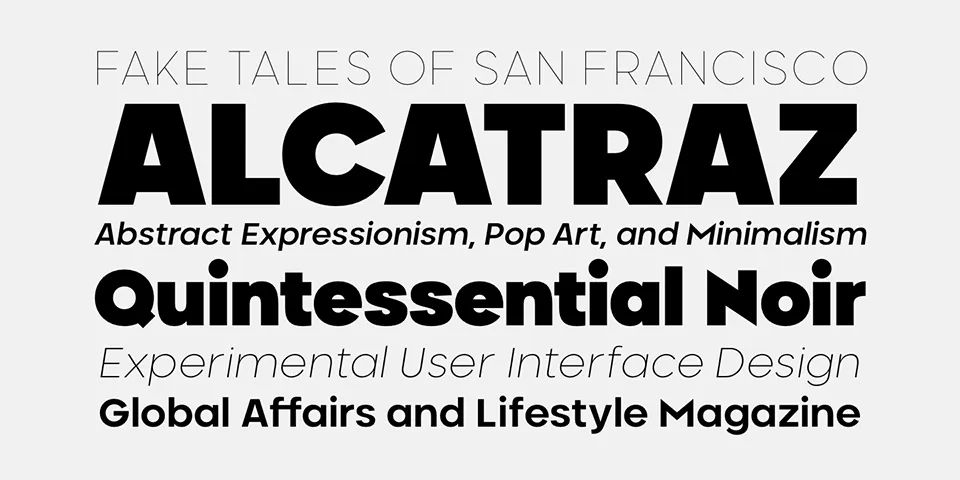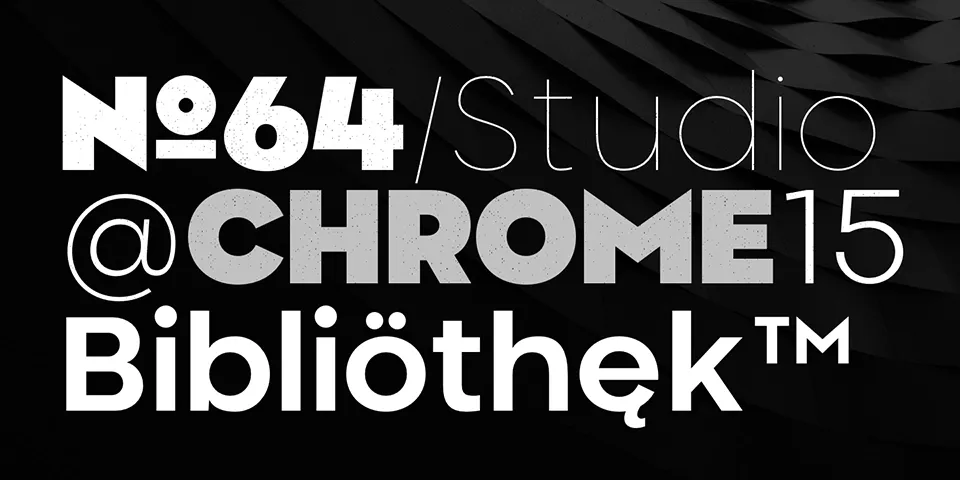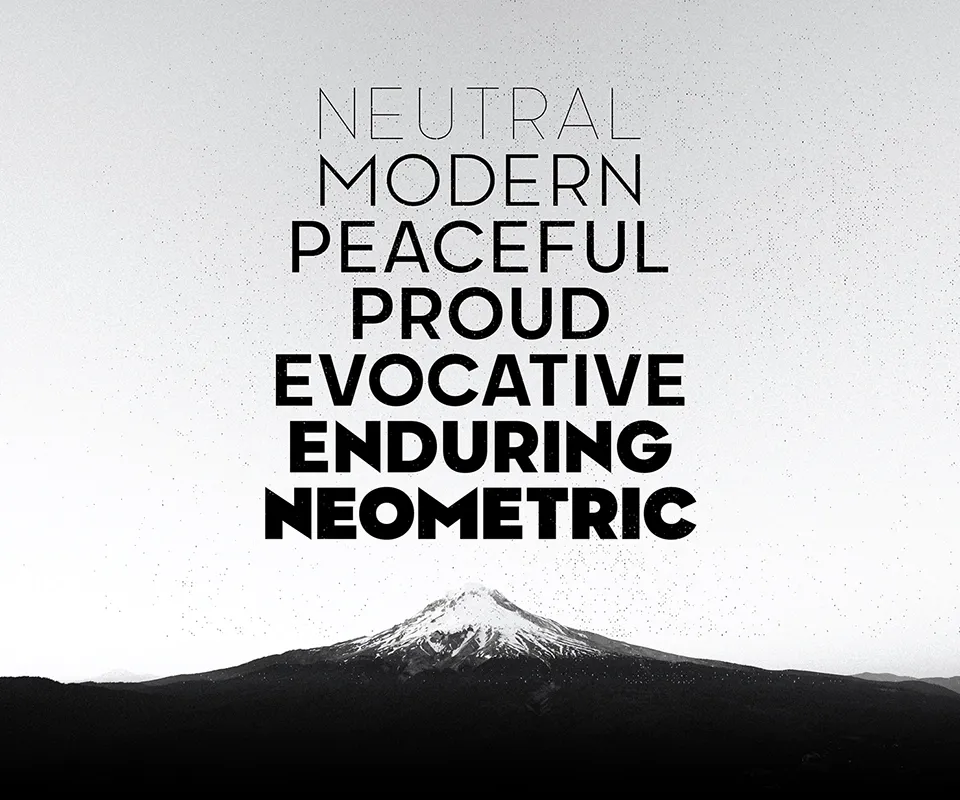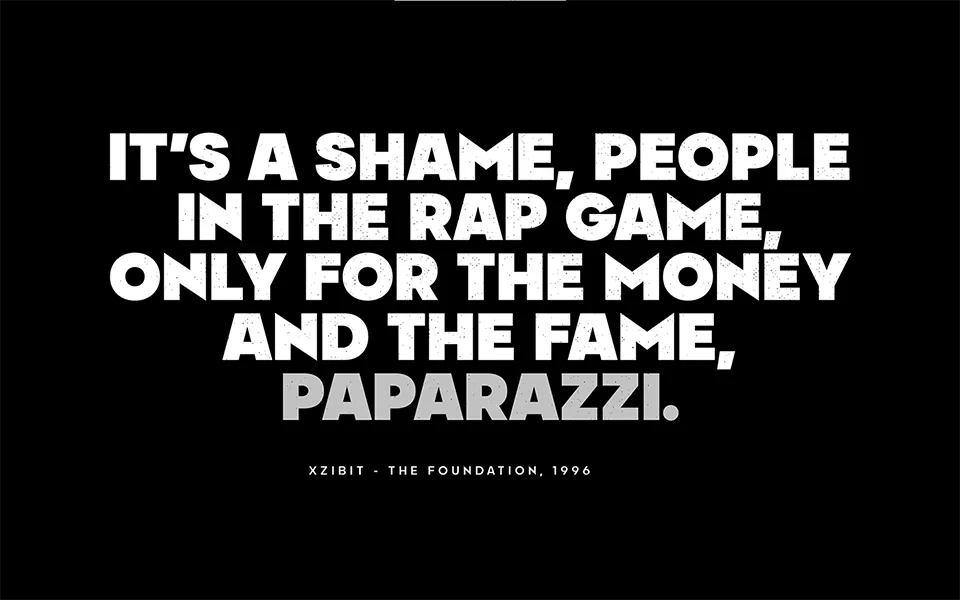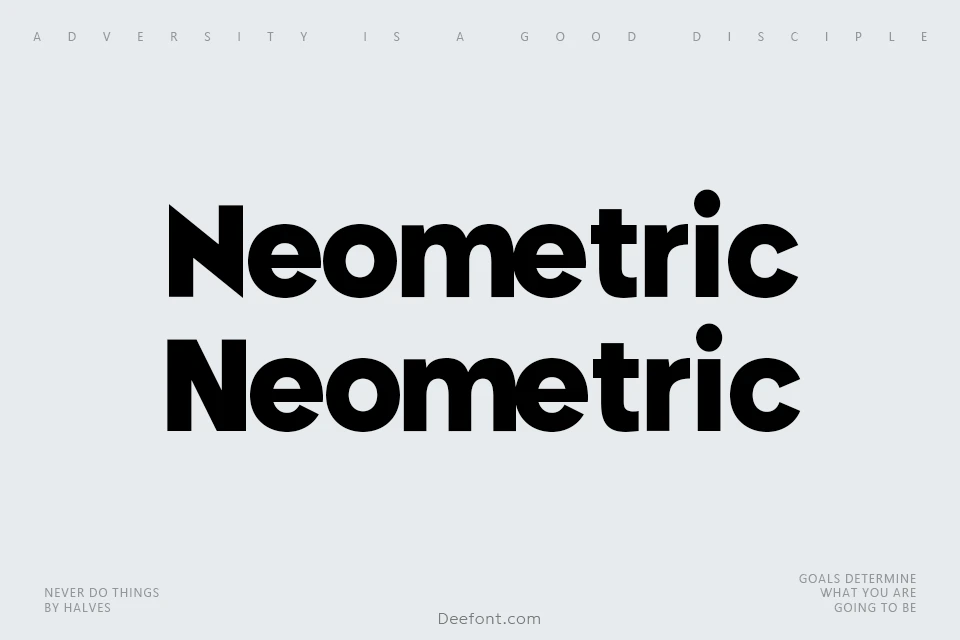
Neometric Font Family
Neometric Font Family, designed by TypeUnion, is a contemporary geometric sans-serif typeface. Built on a geometric foundation, it incorporates more natural curves in heavier weights for enhanced visual appeal. A defining feature is the standard version’s sharp apexes on the ‘N’ and ‘M’ characters, creating a unique and powerful look suitable for branding and various digital or print applications. This extensive family includes 36 styles across two subtle design variations, each featuring 9 weights plus matching italics. Neometric offers broad European language support and basic Cyrillic, adding to its flexibility. A demo version is typically available for personal use, while a commercial license is required for business projects.